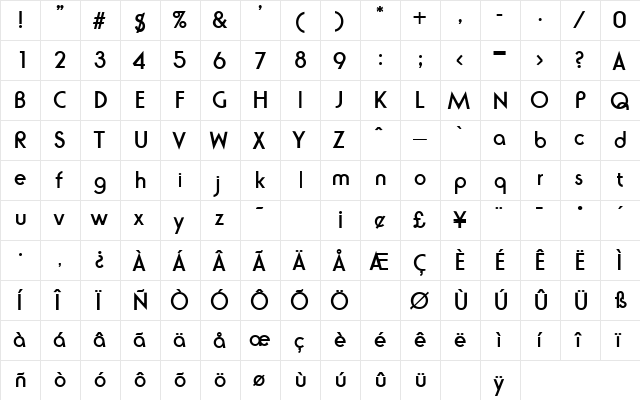
Ronda Bold
Design Context for Ronda Typeface
Ronda offers clean, dependable letterforms without strong stylistic allegiance, making it a practical choice for designers who need flexibility. The heavy weight commands attention and anchors typographic hierarchies.